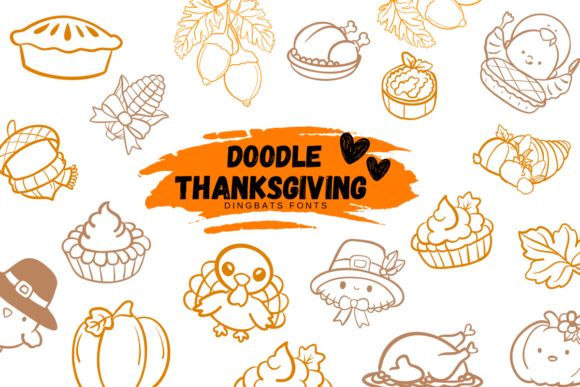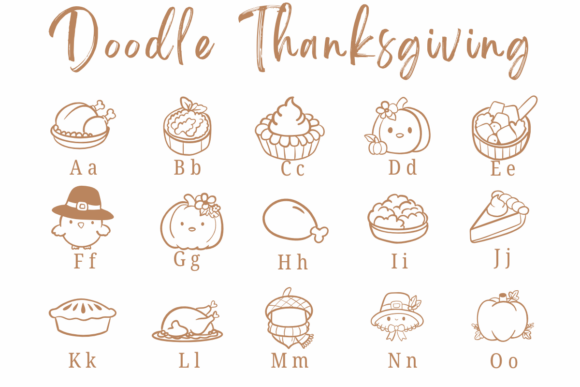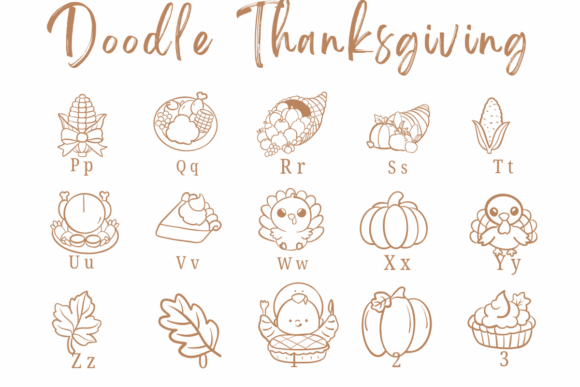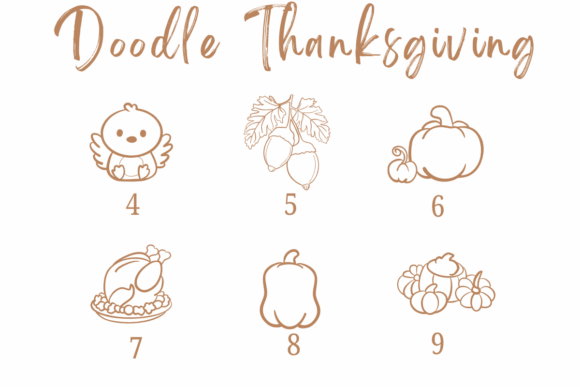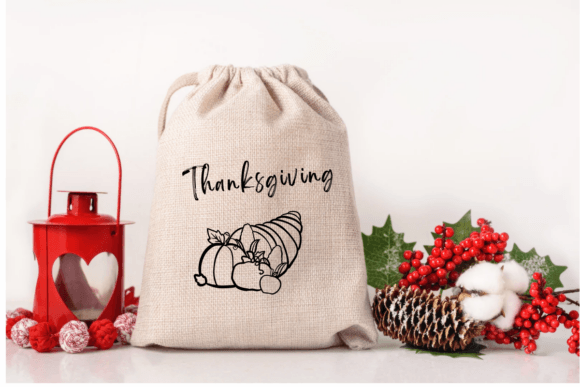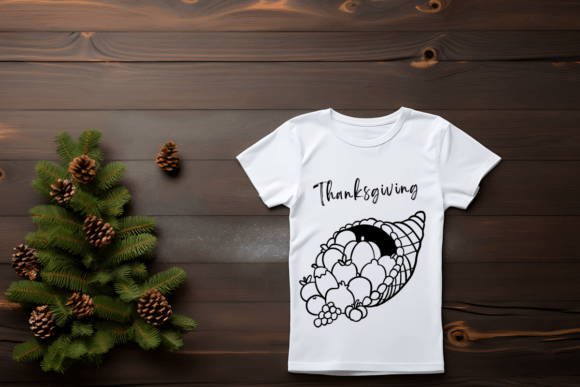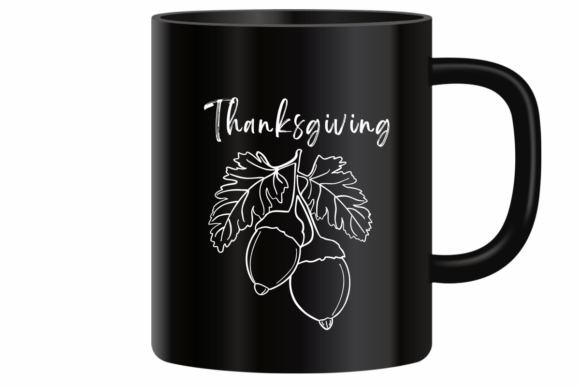
Give Your Thanksgiving Designs a Personal Touch
As you sit down to plan this year’s Thanksgiving decorations and gifts, do you find yourself stuck in a rut? The same old fonts and designs can make your creations feel bland and uninspired. But what if you could add a playful twist to your holiday designs and make them truly special?
Enter the Doodle Thanksgiving Font, a fun and decorative dingbat font that’s perfect for adding a touch of whimsy to your Thanksgiving cards, invitations, and decorations. This charming font features cute and simple Thanksgiving-themed icons, including turkeys, pumpkins, leaves, and corn, making it a valuable resource for designers looking to create unique and memorable holiday designs.
Doodle Thanksgiving Font Key Features
- Unique Characteristics: The Doodle Thanksgiving Font features a playful, hand-drawn design with intricate details and textures, adding a personal touch to any project.
- Characters and Glyphs: The font includes a comprehensive set of characters, including uppercase and lowercase letters, numbers, punctuation marks, and special symbols, as well as a range of Thanksgiving-themed icons and graphics.
Doodle Thanksgiving Font Review
I’ve had the chance to work with the “Doodle Thanksgiving Font” for a few projects, and here’s my honest take.
- The font’s whimsical feel really captures the essence of a fun, casual Thanksgiving celebration.
- The doodle-like illustrations that come with the font are adorable and can add a lot of personality to your designs.
- The font is highly customizable, with a wide range of options for color, size, and style.
- The font can feel a bit overused or clichéd if not used thoughtfully.
- The doodles may not be suitable for all types of designs, especially those requiring a more formal or professional tone.
- The font’s size may be limited in certain contexts, such as smaller text or intricate designs.
Overall, I think the “Doodle Thanksgiving Font” is a great choice for projects that require a playful, casual vibe. While it may have some limitations, it’s a versatile font that can add a lot of personality to your designs. With careful use, it can be a real showstopper.